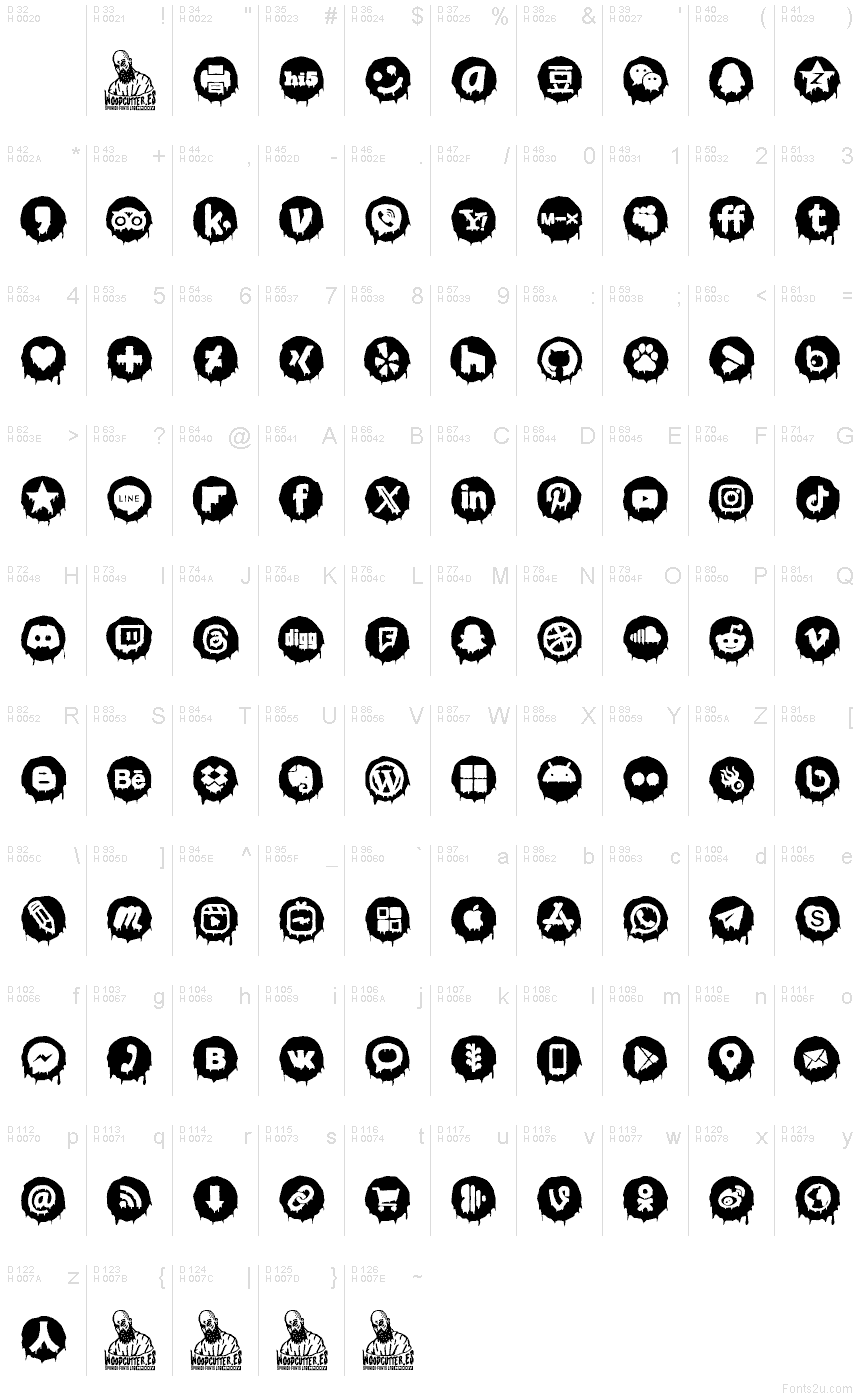
Scary Social Media
Scary Social Media font by Woodcutter is a free dingbats typeface that turns familiar platform logos into inky, splattered badges. Each mark sits inside a rough, drippy circle-like wet paint bleeding on paper-so you can swap sterile brand buttons for something with grit and mood in seconds. When you need social icons that match a spooky theme without redrawing everything, this set solves it with one keystroke.
Using Scary Social Media, you can brand Halloween promos, horror podcasts, haunted house flyers, game UIs, stream overlays, YouTube thumbnails, and sticker packs. The blotchy edges read loud at medium to large sizes; keep them bold for clarity. For balance, pair these icons with a clean, narrow sans for body copy so the grime stays in the graphics while text remains crisp. This free font drops right into layouts where polished icons feel too tame.